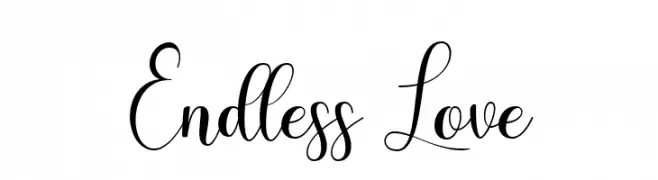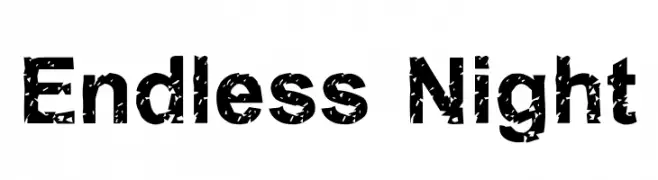
A graceful script font with flowing, elegant strokes and high contrast.
A bold, pixelated font with a retro video game aesthetic.
A bold, hand-drawn font with a dynamic, graffiti-like style.
A bold, hand-drawn font with a rugged, distressed look.
A romantic and elegant script font with graceful loops and swashes.
A romantic and sophisticated script font with flowing, cursive letters and ornate flourishes.
A bold, distressed font with a grunge aesthetic.
A bold, dynamic script font with flowing, interconnected letters and decorative lines.